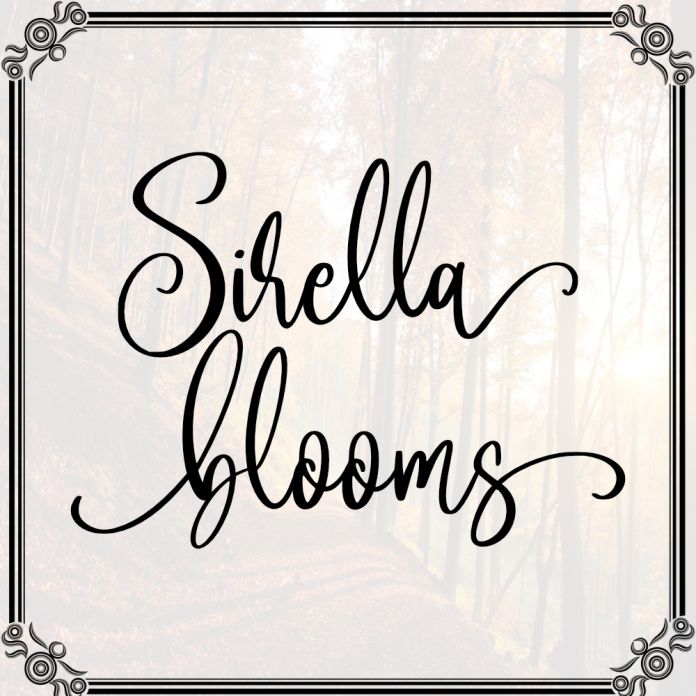
Sirellablooms Font
Introducing Sirellablooms, a delicate handwritten font that blossoms with elegance and charm. Designed to capture the beauty of natural handwriting.